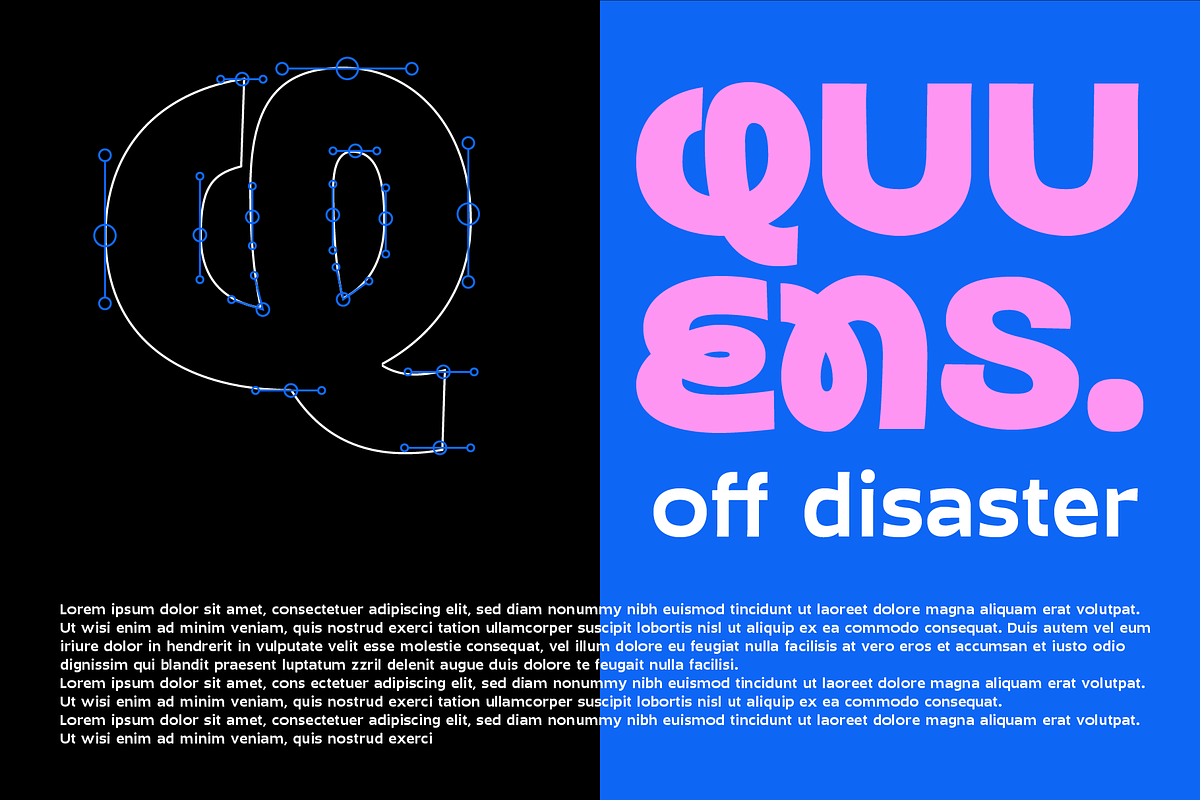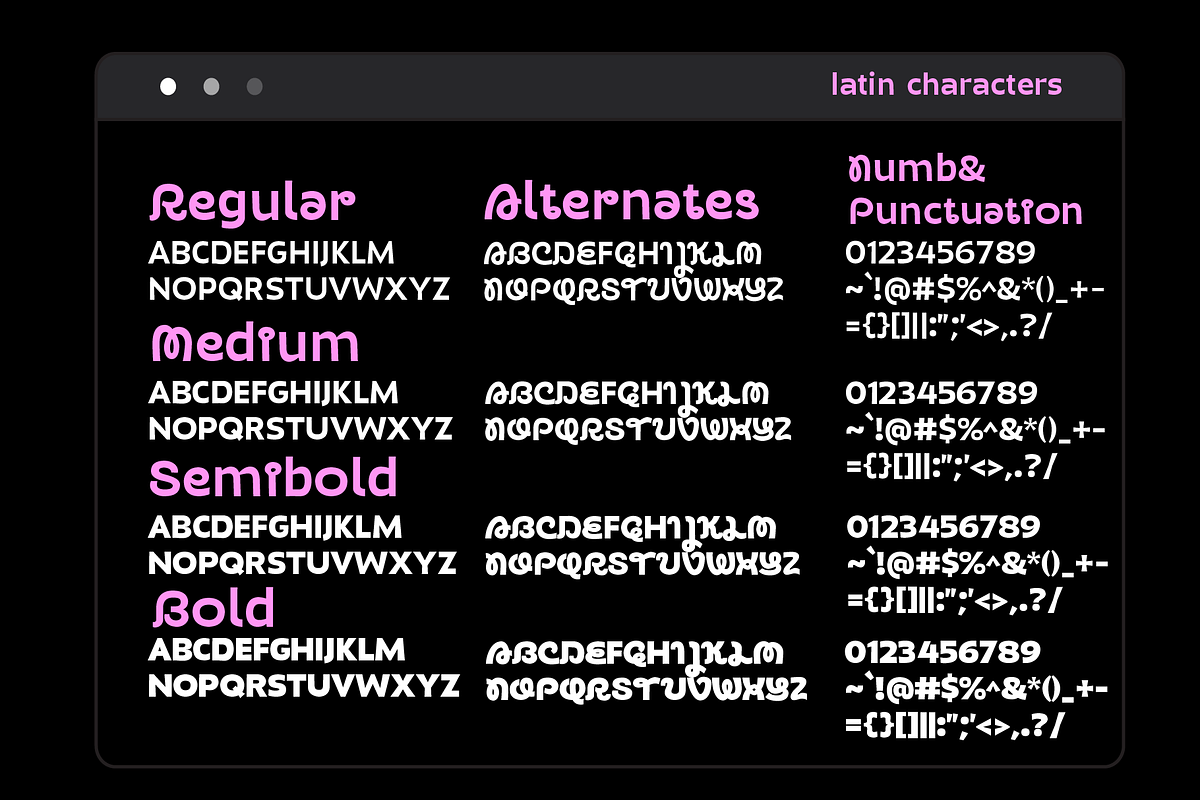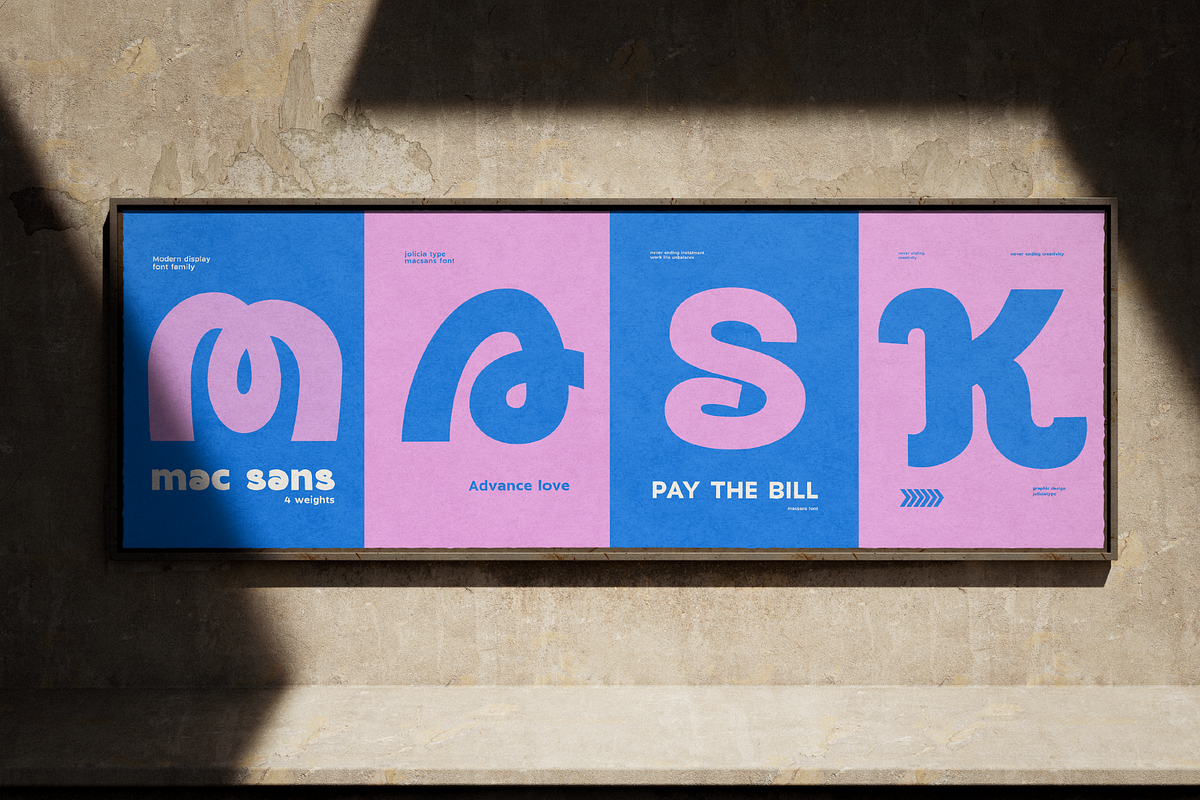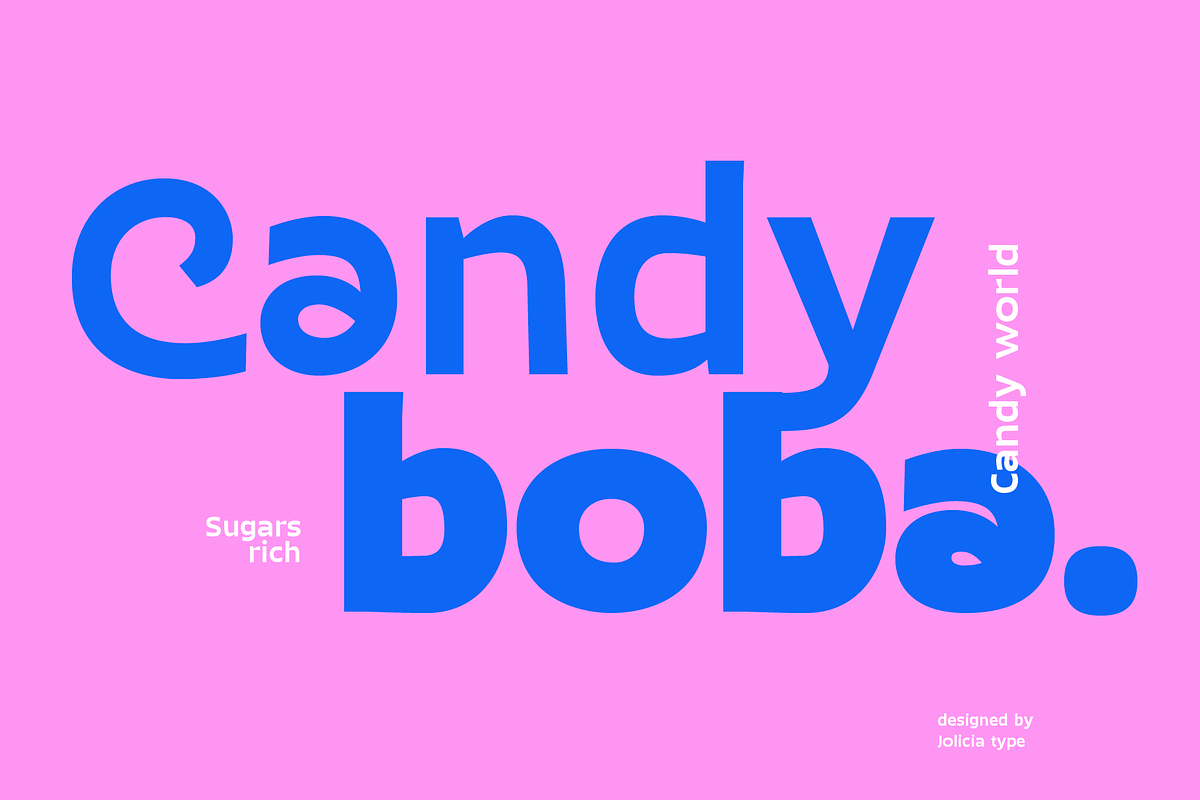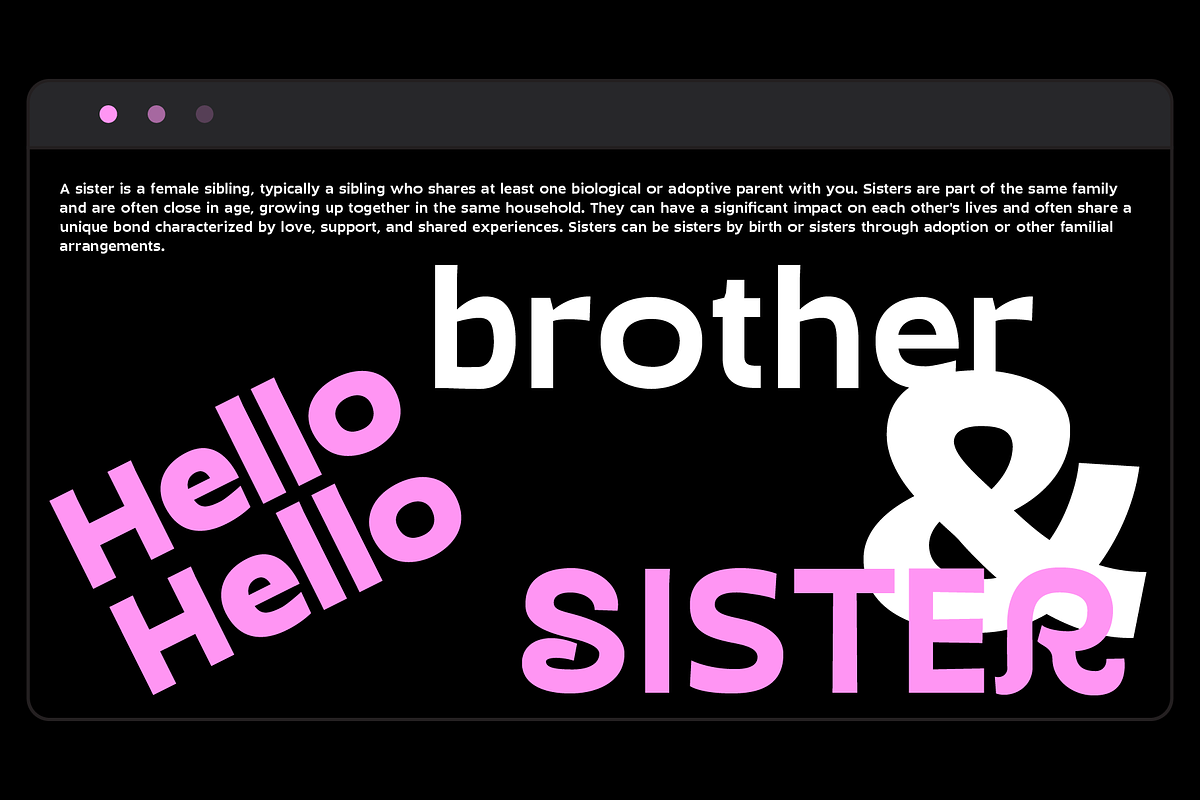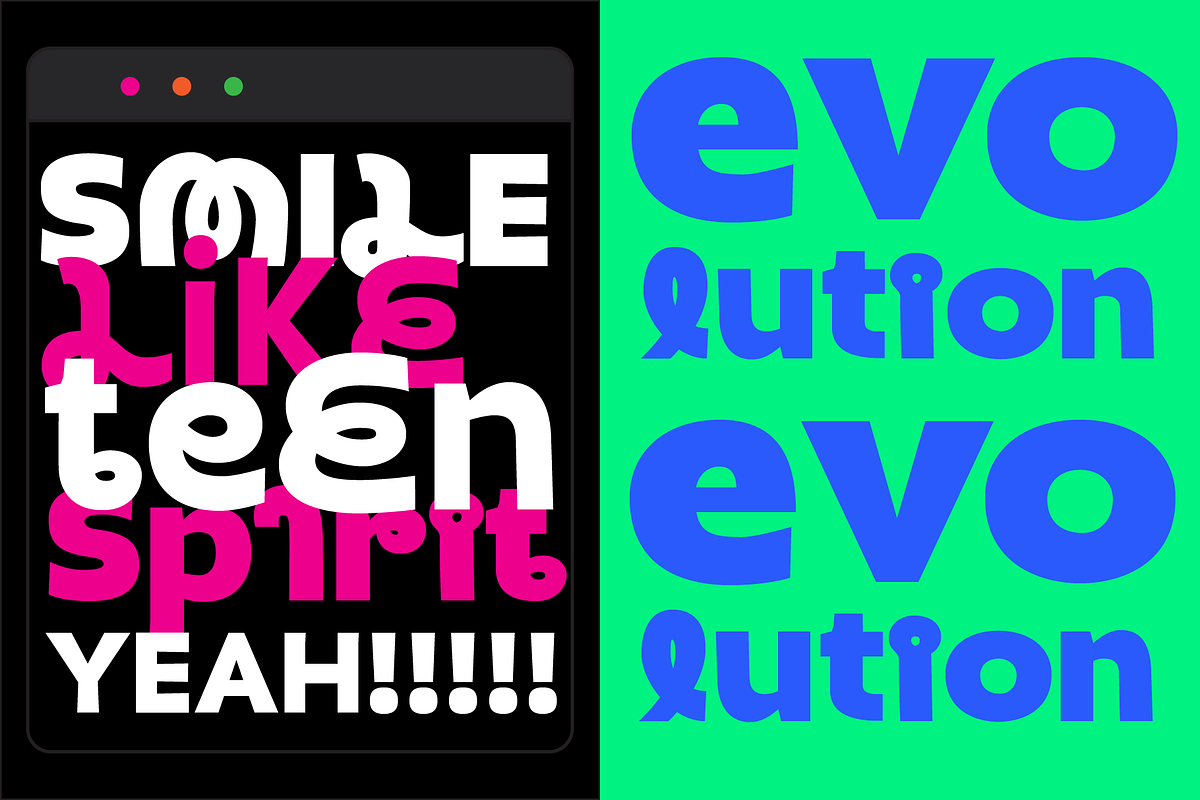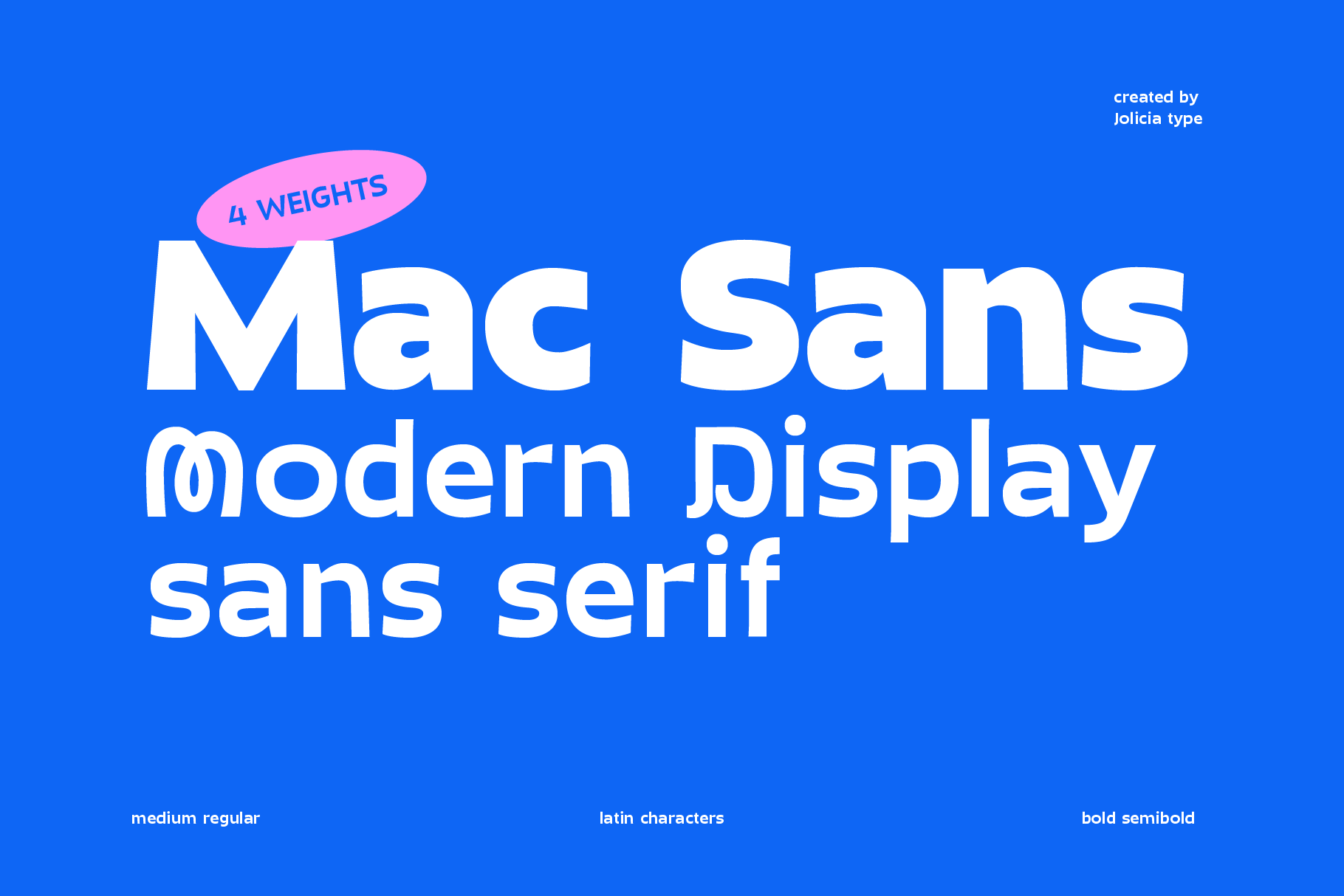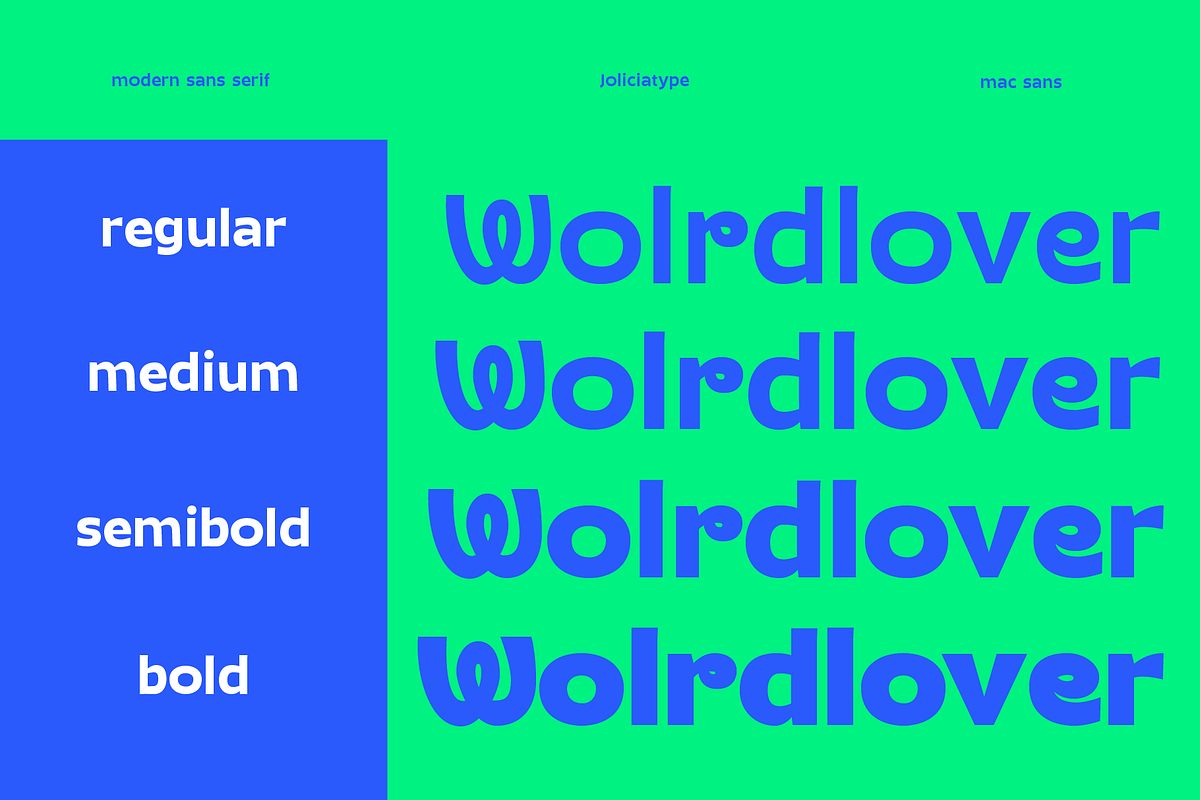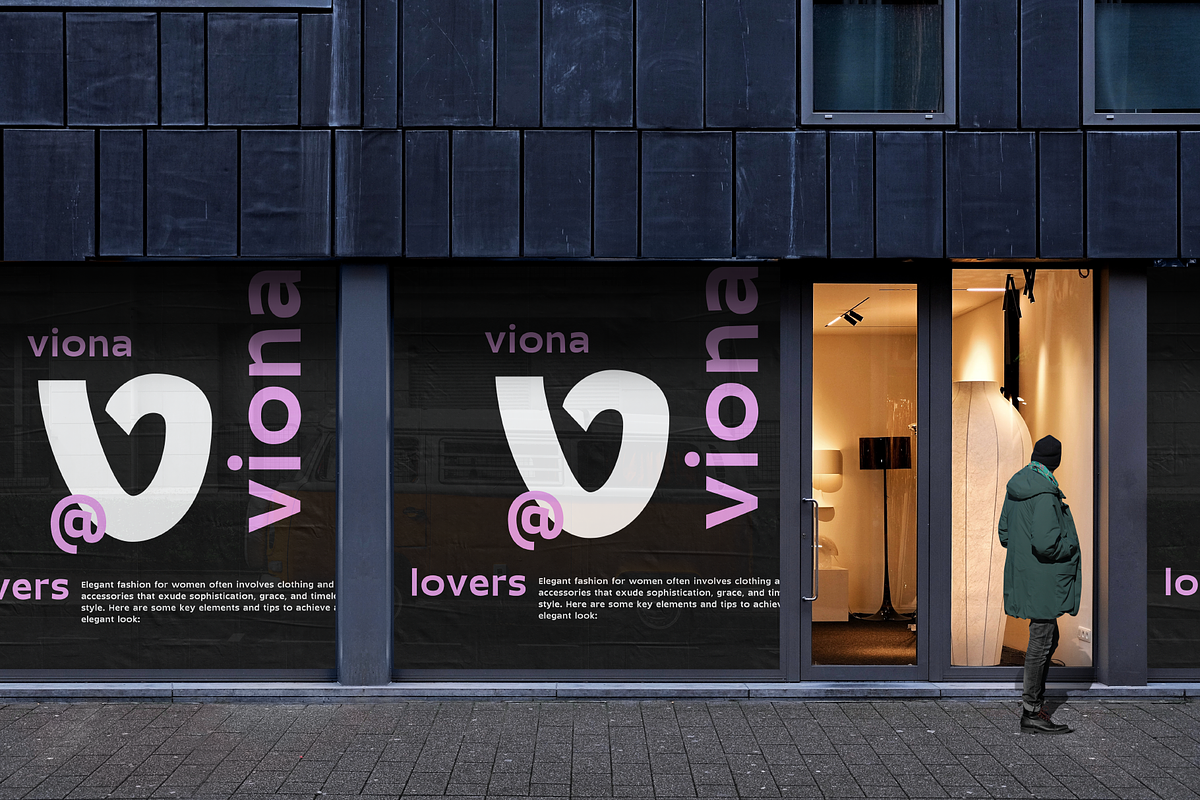
Mac Sans | Display Sans Serif Font
Introducing Mac Sans: The Perfect Blend of Firmness and Uniqueness
Elevate your design projects with Mac Sans, a modern sans serif font that effortlessly combines a strong, authoritative presence with a distinctive character that sets it apart from the crowd.
1. Firm Yet Friendly: Mac Sans strikes the perfect balance between a bold, assertive statement and an inviting, approachable style. Its sturdy letterforms convey confidence without sacrificing approachability. 2. Unique Personality: While many sans serif fonts may seem interchangeable, Mac Sans stands out with its one-of-a-kind personality. Each character has been meticulously crafted to ensure that your designs are memorable and captivating. 3. Versatile Design: Whether you're working on a professional presentation, branding materials, web design, or a creative project, Mac Sans adapts effortlessly to various contexts. Its clarity and readability make it suitable for both headlines and body text. 4. Extensive Character Set: Mac Sans includes a comprehensive set of characters, including uppercase and lowercase letters, numerals, punctuation marks, and special symbols. It also supports multiple languages, making it a truly global typeface. 5. 4 Weights: Choose from a range of weights to suit your design needs, from the bold and commanding "Mac Sans Bold" to the sleek and sophisticated "Mac Sans Regular." Mix and match to create dynamic typographic processes. 6. Easy to Use: With a user-friendly design, Mac Sans is a breeze to work with in various design software and applications. It ensures a smooth workflow and consistently outstanding results. 7. Endless Possibilities: Whether you're designing logos, posters, websites, or print materials, Mac Sans empowers you to explore a world of creative possibilities. Its unique character injects personality into your projects, making them truly stand out.
Elevate your typography game and leave a lasting impression with Mac Sans. Its firm yet unique character is sure to make your designs shine. Discover the versatility and distinctiveness of Mac Sans today, and let your creativity soar.